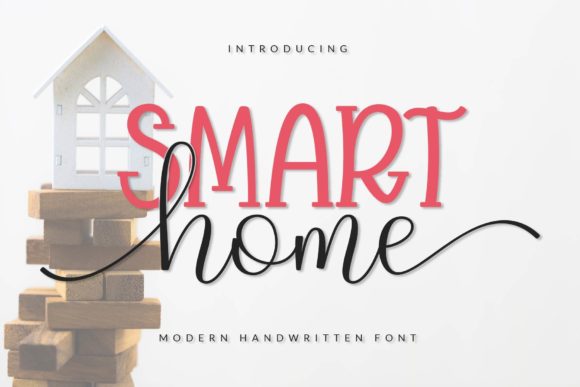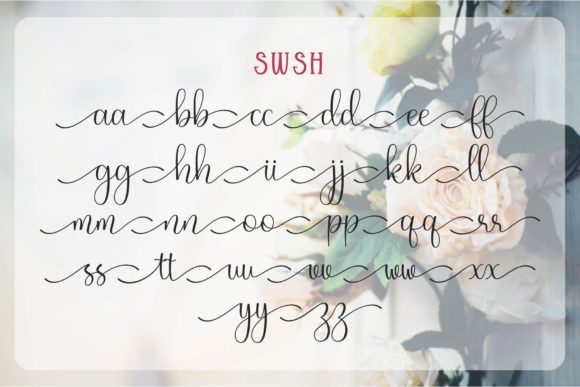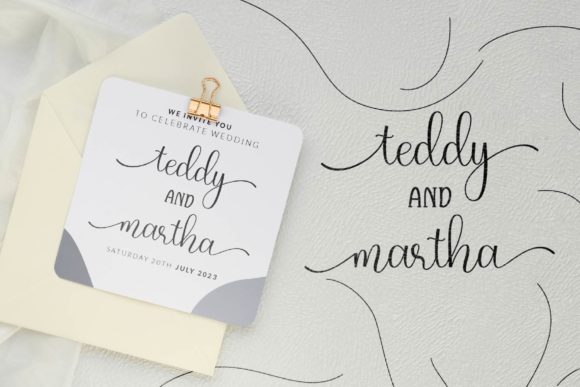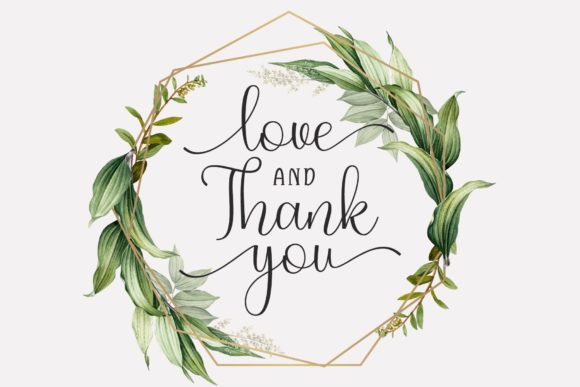
About Smart Home Font
Smart Home is an elegant and joyful duo font (display and script). Whatever the topic, this font will be a wonderful asset to your font library, as it has the potential to enhance any creation.